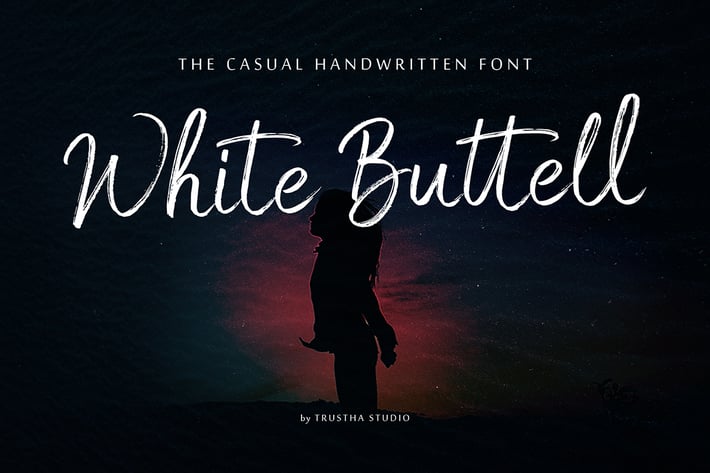
White Buttell Brush Font
White Buttell is a handwritten brush script font. It has a natural style of a dry marker which makes it perfect for branding, advertising, poster designs, logos, book covers, magazines, packaging, website headers, and more.
- Uppercase & lowercase
- Number & punctuation symbols
- Swashes
- International characters (Multilingual)